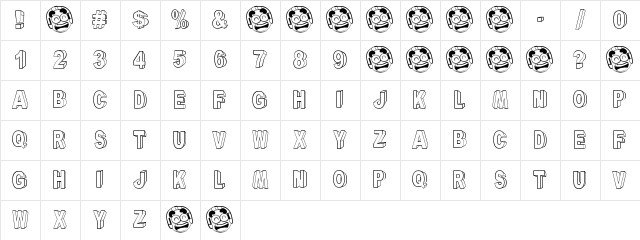
Complete A Ryal Black Block Regular glyph index. Displaying only characters natively supported by A Ryal Black Block Regular font.
A Ryal Black Block is a composed and adaptable typeface that performs quietly and consistently across a wide range of design contexts.